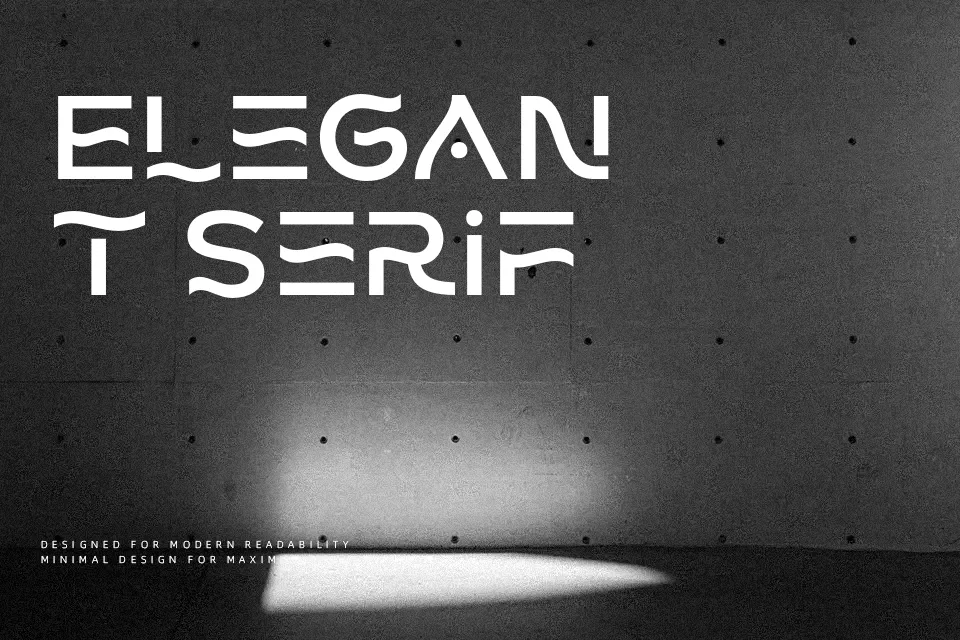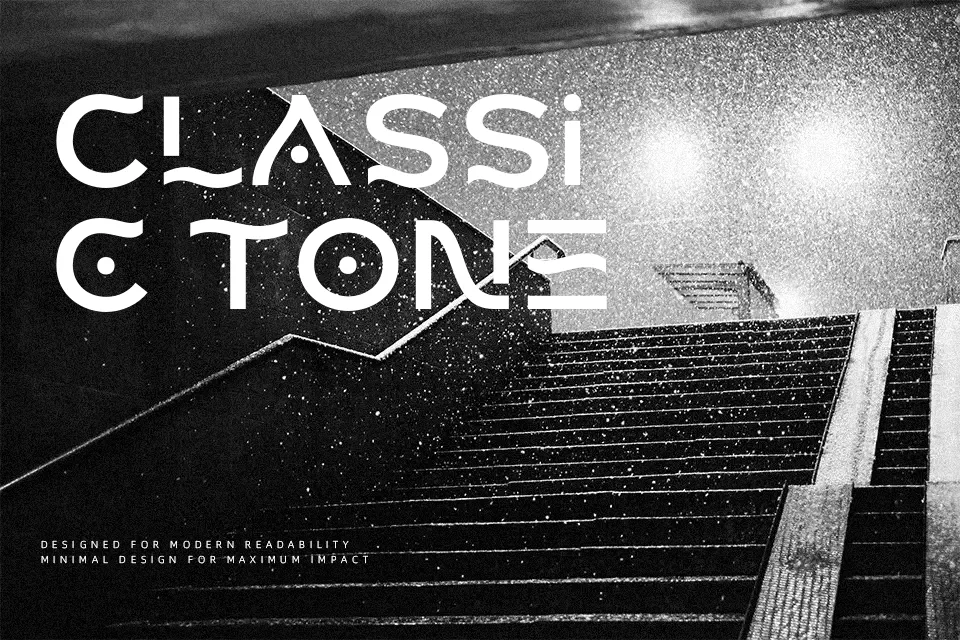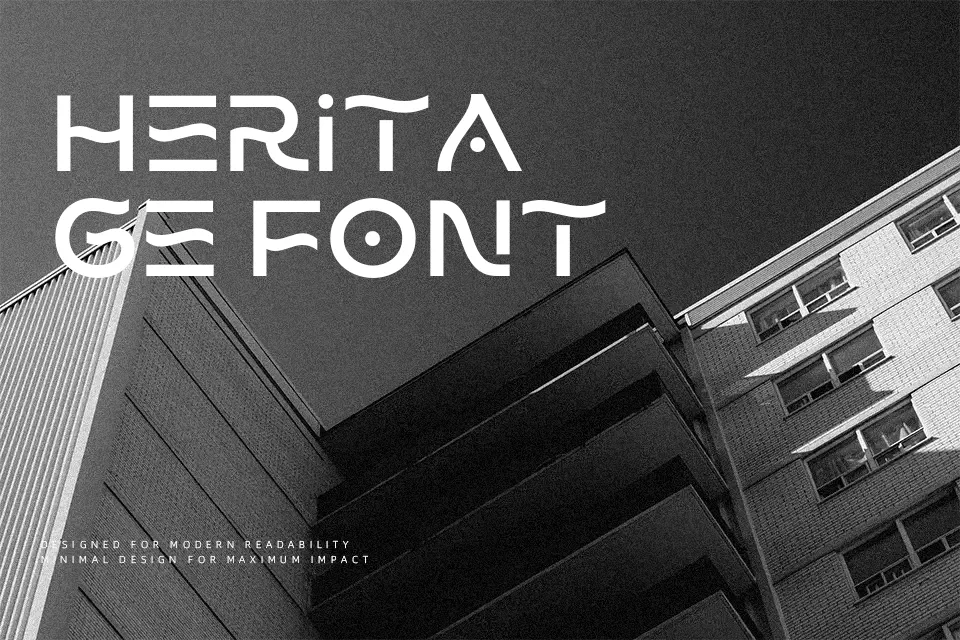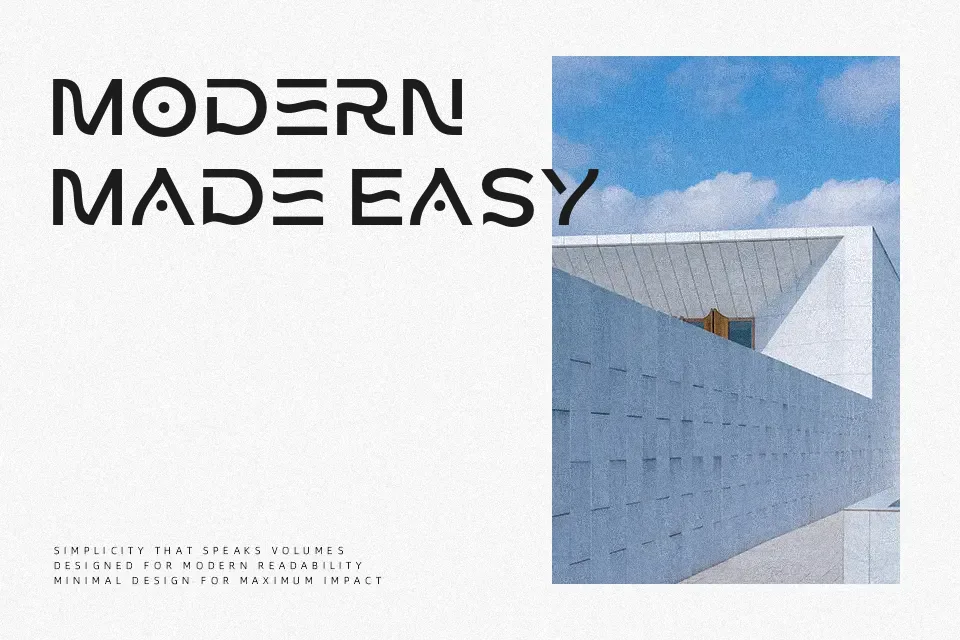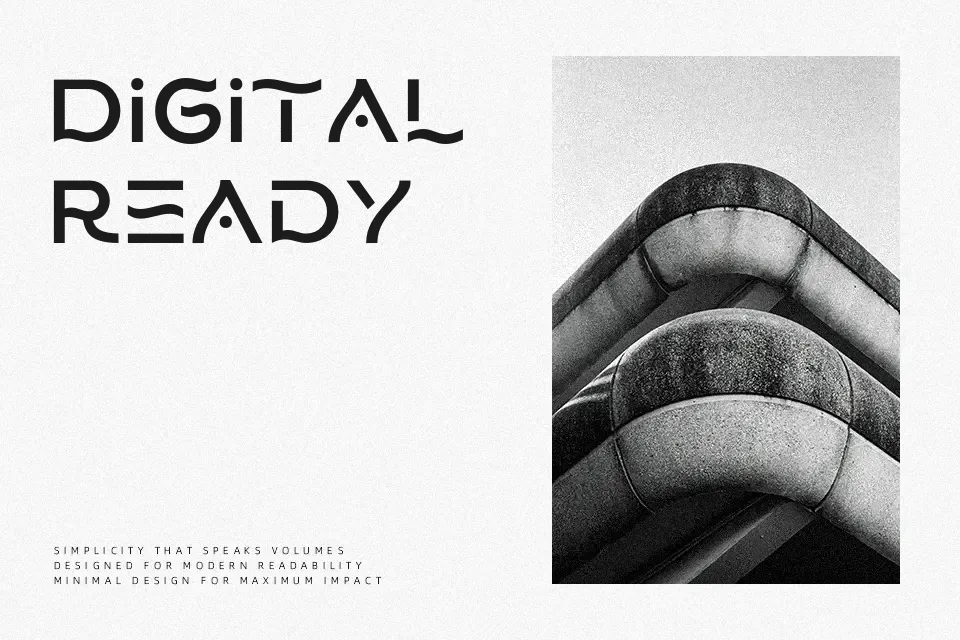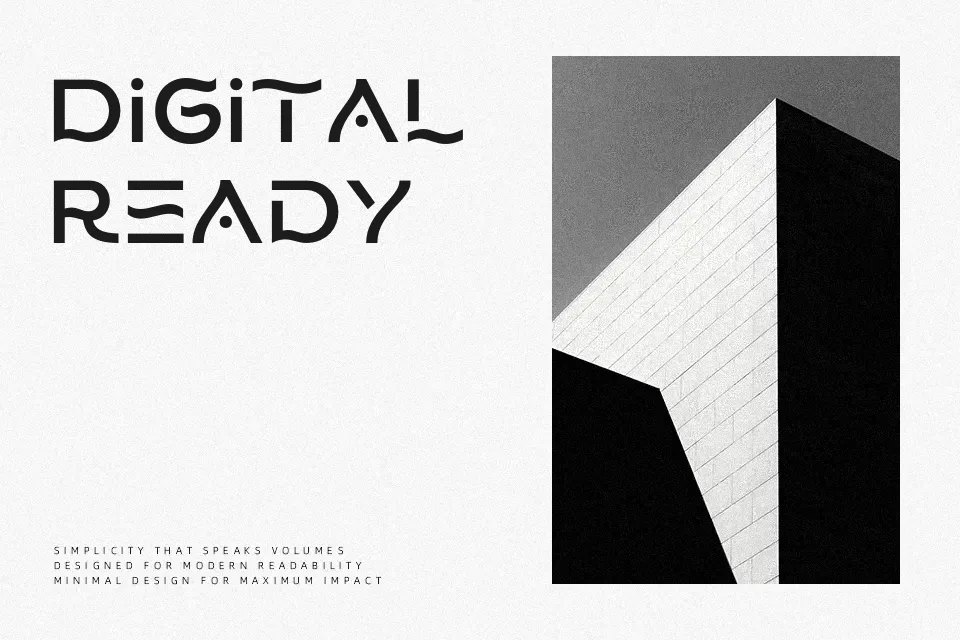
Bodwars Font
Designed by Saridezra
Bodwars is an expanded sans serif display font that radiates a distinct futuristic energy. Designed by Sarid Ezra, its wide letterforms, clean strokes, and bold weight provide a confident and commanding presence. The subtle interplay between uppercase and lowercase characters allows designers to craft uniquely balanced typographic structures.
This typeface excels in cutting-edge technology branding, competitive esports logos, and cinematic sci-fi posters where immediate visual impact is mandatory. Its robust architecture guarantees strong readability at large scales while maintaining an aggressive modern edge. However, Bodwars will quickly feel overwhelming and difficult to digest if applied to dense body paragraphs or traditional editorial layouts. It is built strictly for short, high-impact statements rather than long-form reading.
Striking tech startup logotypes
Immersive sci-fi movie titles
Competitive gaming team branding
Bold hero section typography
Long-form article body text
Traditional corporate letterheads
Minimalist luxury fashion branding
Perfect for branding, film, and gaming, with a bold and display style.